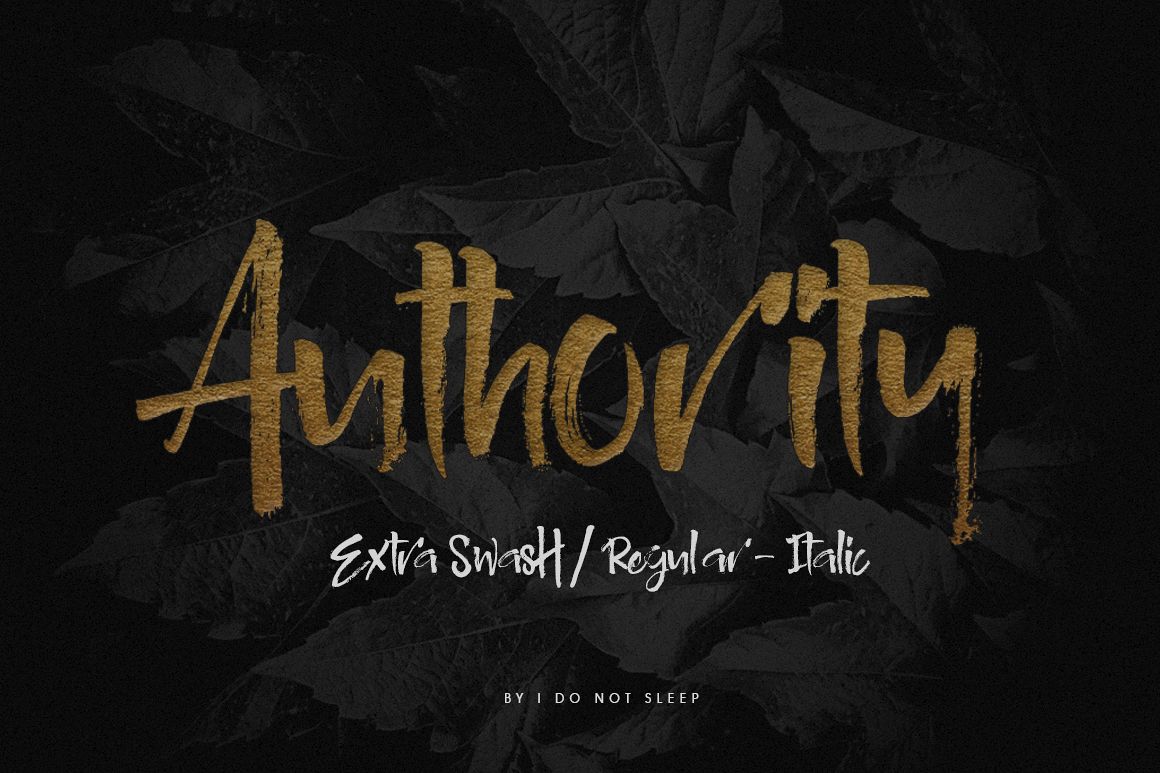
Authority
Authority-Swash-Regular
Authority-Regular
Authority-Italic
Hello everyone, I have released a new font named Authority.
Authority is one of my favourite handwriting font collections, has an awesome, firm, neat texture, looks young, stylish which will make the product you create will look cooler. Equipped in a regular and italic form with several ligatures that will make fonts more perfect, the Authority is also equipped with multilingual, and also equipped with OTF / TTF swash format. Authority fonts are perfect when you use them for the needs of magazine content, websites, product design, markers, t-shirts, merchandising, quotes, displays or even name card. please check the font preview section and write the name you want.